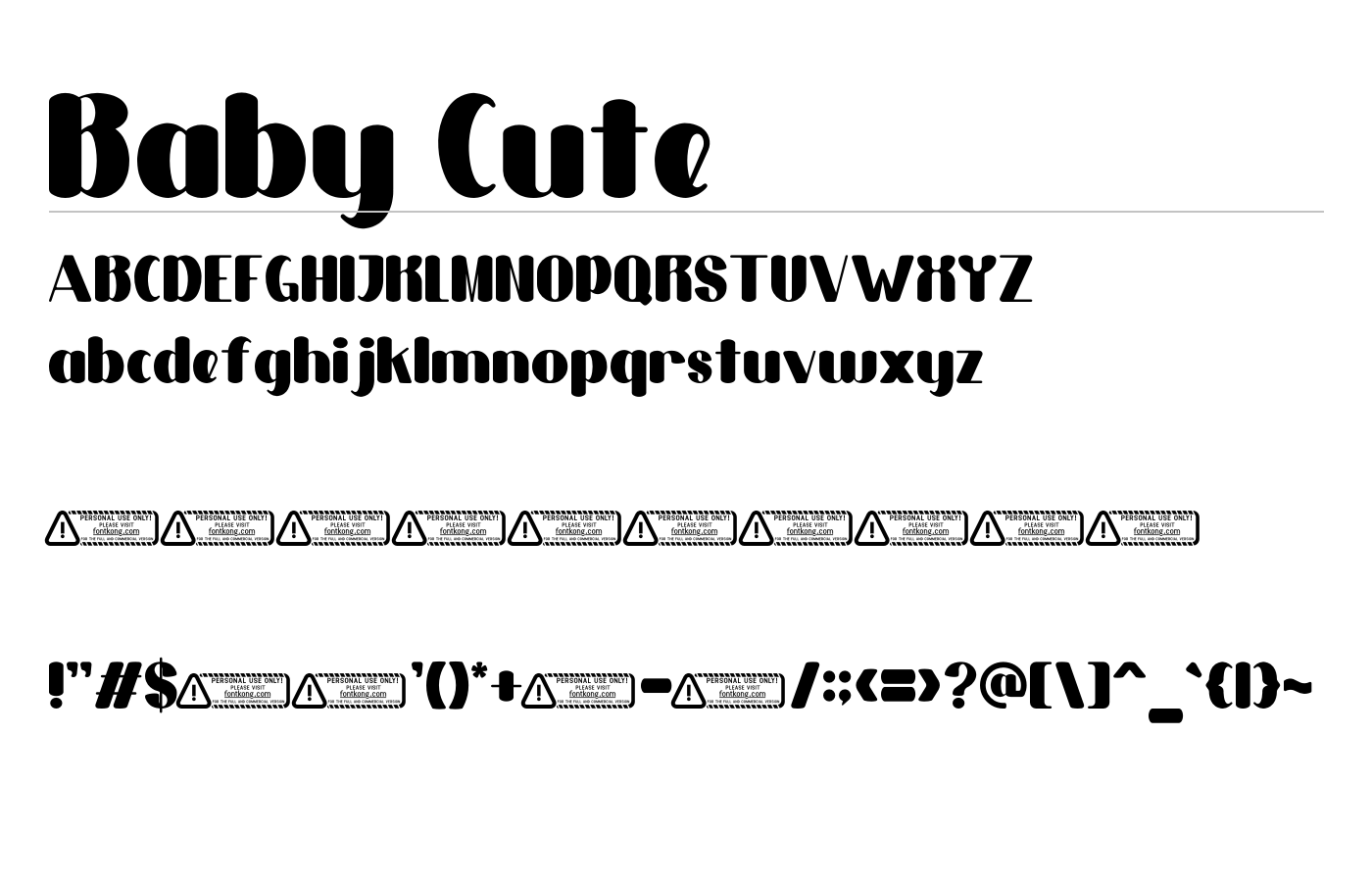
Baby Cute Font is a bold, playful sans-serif with rounded edges that give it a soft, friendly feel. Its thick strokes and slightly condensed letterforms make it great for eye-catching headlines and fun branding, especially for children’s products or casual, joyful designs. This font’s charming personality adds warmth and approachability, perfect for projects wanting to convey cheerfulness and creativity.
Baby Cute Font
About Baby Cute Font
| Font family | Baby Cute Font |